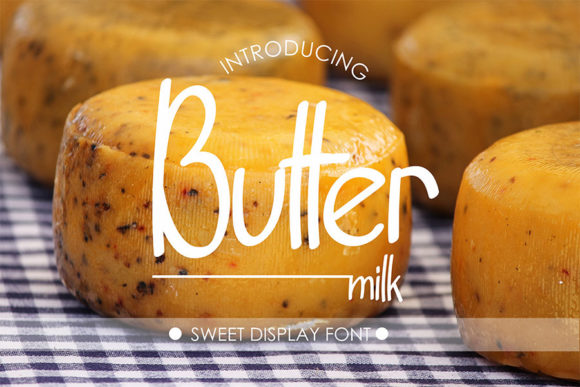
The Sweet Spot: Discovering the Charm of Buttermilk Font
I’ll never forget the time I was working on a branding project for a local bakery, and I just couldn’t find the right font to capture their warm and cozy vibe. The client wanted something that felt homemade, yet sophisticated enough to stand out on their packaging and marketing materials. That’s when I stumbled upon Buttermilk, a simple and natural handwritten font that instantly won me over. In this article, I’ll share my love for Buttermilk, its features, and how you can make the most of it in your designs.
An Honest Review: What I Love About Buttermilk
Buttermilk is a beautiful, friendly font that can elevate any design project. Here are some things I love about it:
• ✨ Simple and natural handwritten feel
• ✅ Works well for a variety of design projects, from branding to invitations
• 💕 Friendly and approachable vibe that’s perfect for food, craft, or lifestyle brands
• 🎨 Highly versatile and can be used in both digital and print designs
While Buttermilk is an excellent font, it’s not without its quirks. Here are a few things to keep in mind:
• 🤔 May not be the best choice for very formal or corporate designs
• ⚠️ Some characters may not work well at very small font sizes
The Story Behind Buttermilk
Buttermilk was designed with the intention of creating a friendly, approachable font that would work well for food, craft, and lifestyle brands. The designer wanted to create a font that felt homemade, yet sophisticated enough to stand out in a crowded market. And I think they succeeded!
What type of designs is Buttermilk best suited for? Buttermilk is a versatile font that works well for a variety of designs, including branding, packaging, invitations, and social media graphics.
Does Buttermilk support OpenType features? Yes, Buttermilk supports OpenType features, including glyphs and stylistic alternates. Experiment with these features to add some personality to your text.
In conclusion, Buttermilk is a beautiful, friendly font that’s perfect for adding a touch of warmth and personality to your designs. With its simple, natural handwritten feel and support for OpenType features, it’s an excellent choice for designers, crafters, and creative hobbyists alike.